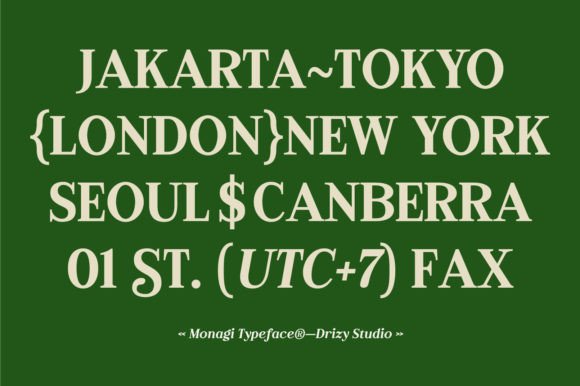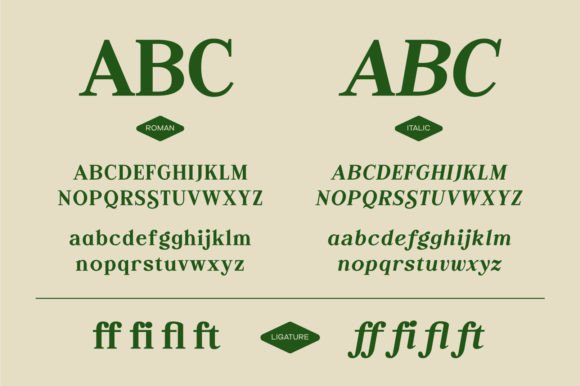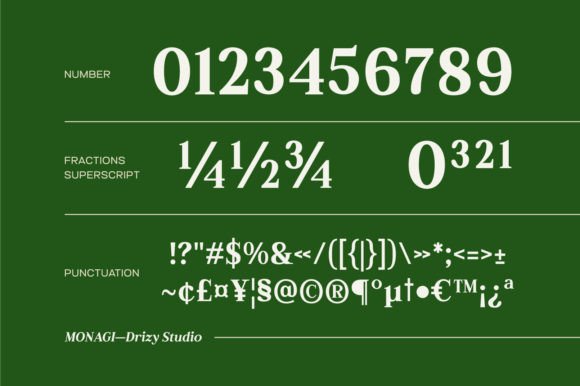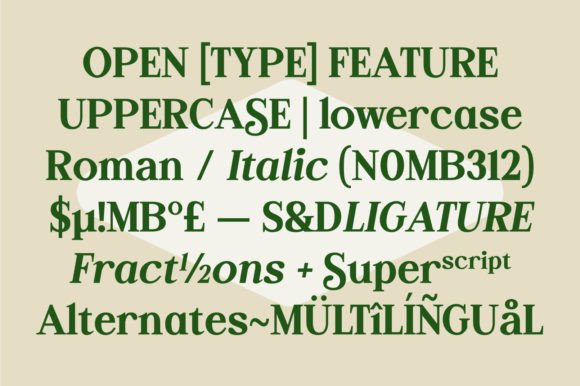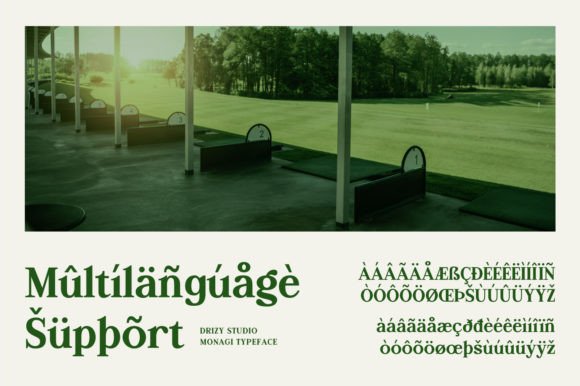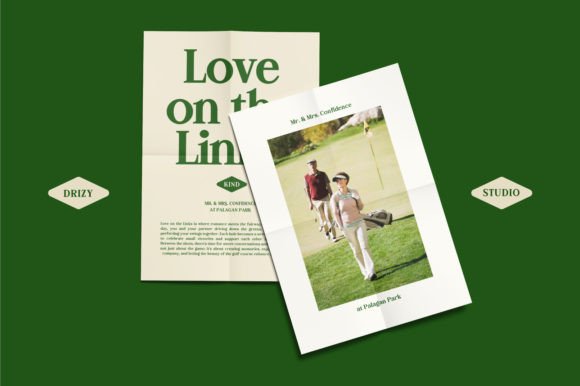
Introduction to Monagi Font
Have you ever been scrolling through a golf tournament’s logo and felt an instant sense of awe at the elegance and sophistication it exudes? For designers, this moment is a reminder that the right font can make all the difference in a project. One such font that stands out is the Monagi Font, a timeless typeface that perfectly captures the essence of the game.
Whether you’re working on a creative project for a luxury sports brand or an elegant sporting event, the Monagi Font is an invaluable design resource. Its unique blend of classic charm and contemporary style makes it a high-quality choice for any project that requires a touch of sophistication. With its distinct serif details and retro appeal, this font is sure to elevate your design game and leave a lasting impression on your audience.
As a versatile design tool, the Monagi Font can be used on a variety of mediums, from logos and apparel to signage and more. Its transparent background and free download options make it an accessible resource for designers of all levels. In this article, we’ll delve deeper into the world of the Monagi Font and explore its many uses and benefits.
Key Features of Monagi Font
- High-quality design resource suitable for creative projects, offering a unique and elegant touch.
- Features a transparent background, making it easy to overlay on images or use as a standalone element in designs.
- Its distinctive design and high-quality rendering make it an excellent choice for creative projects, from logos to typography-based designs.
- Perfect for designers looking for a high-quality, versatile font to enhance their designs and leave a lasting impression.
Honest Review: Monagi Font
I recently had the chance to try out the Monagi Font for a creative project, and I’m excited to share my thoughts on this design resource. Overall, I was impressed with the high quality of this font, which added a unique touch to my design.
- Unique and stylish design that sets it apart from other fonts
- Clear and legible, making it perfect for body text and headings
- Transparent background, allowing for easy customization and blending with other design elements
- Limited font styles and variations, which may not be suitable for complex design projects
- Not suitable for small font sizes, as it may become difficult to read
Overall, I was pleased with the Monagi Font and would recommend it for simple design projects or those looking for a unique, high-quality font. However, for more complex projects, you may want to consider additional font options.
Monagi Font
The Monagi Font is a versatile and high-quality design resource ideal for various creative projects. It features a transparent background, making it perfect for overlaying on images or using as a standalone element.
Tips for Getting the Most Out of Monagi Font
To get the most out of the Monagi Font, experiment with different font sizes, colors, and combinations to create unique and eye-catching designs.
The Monagi Font is suitable for various creative projects, including:
- Logo creation
- Poster design
Is the Monagi Font a high-quality design resource?
Yes, the Monagi Font is a high-quality design resource. It was carefully crafted to provide a unique and stylish look for your creative projects. The font features a clean and modern design, making it perfect for a wide range of applications, from branding and marketing materials to digital products and print designs.